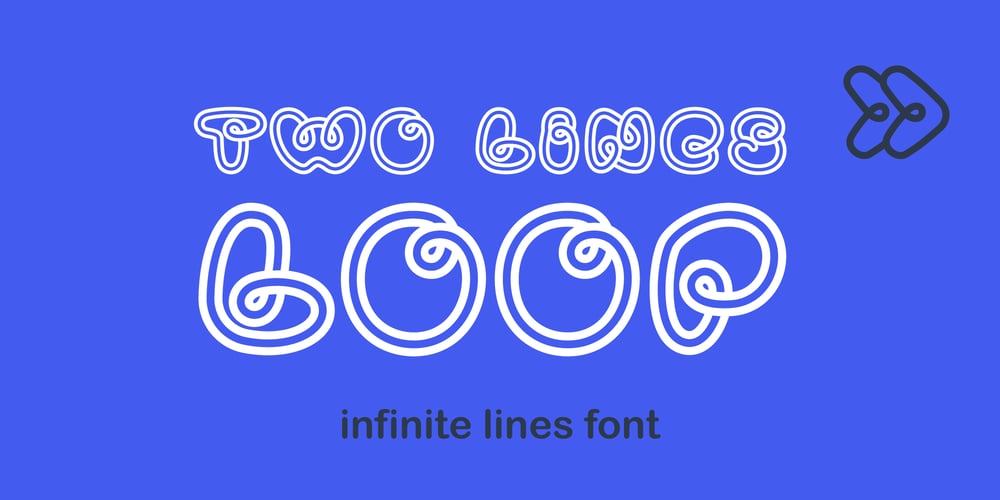
Two Lines Loop Font Family was designed by Roman Korolev and published by Kaer. Two Lines Loop contains 1 styles and family package options. Alphabet set made of two white parallel lines. They are looked like infinite looped icons. Ideal for dynamic app, minimalism design, sports identity, technology adv.What’s included? Uppercase (lowercase are the same) Numbers Symbols Punctuation Multilingual support Please feel free to request any help you need: kaer.pro@gmail.comBest, Roman.